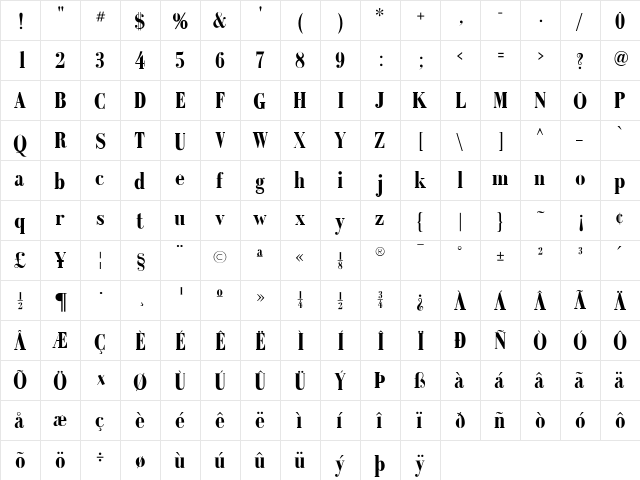
GalileoFLF Bold
Design Context for GalileoFLF Typeface
GalileoFLF offers clean, dependable letterforms without strong stylistic allegiance, making it a practical choice for designers who need flexibility. Its bold stroke weight gives it real presence on the page.